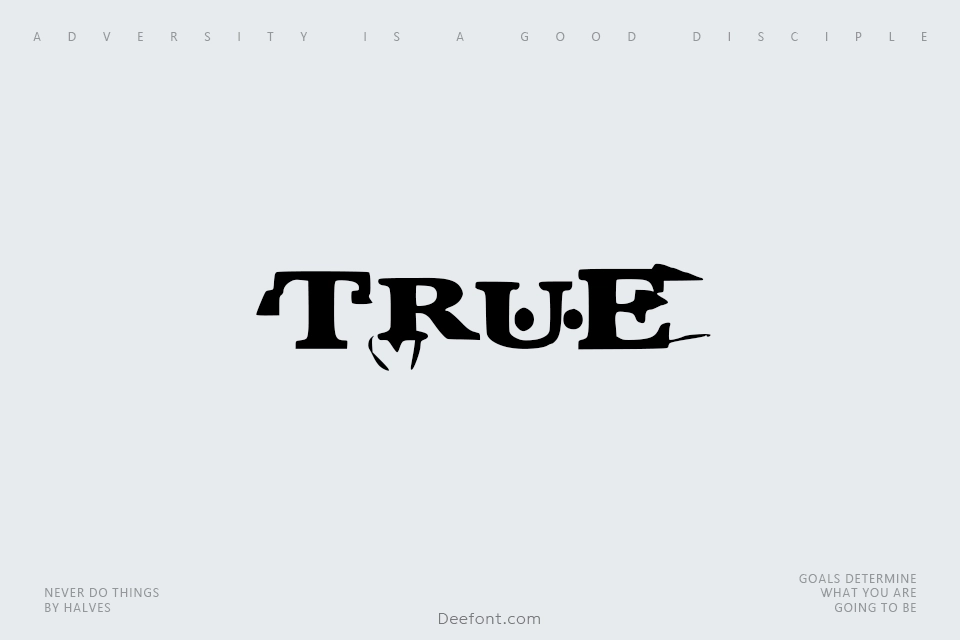
True Font
True is a fun and distorted fancy font designed by Zachary Wallace, perfect for adding playful character to your typography projects. With its whimsical and random style, this free typeface is ideal for creative designs that require personality and visual interest. Featuring 143 glyphs, True offers versatility for personal creative endeavors and stands out as an engaging decorative option for those seeking unconventional typographic solutions.